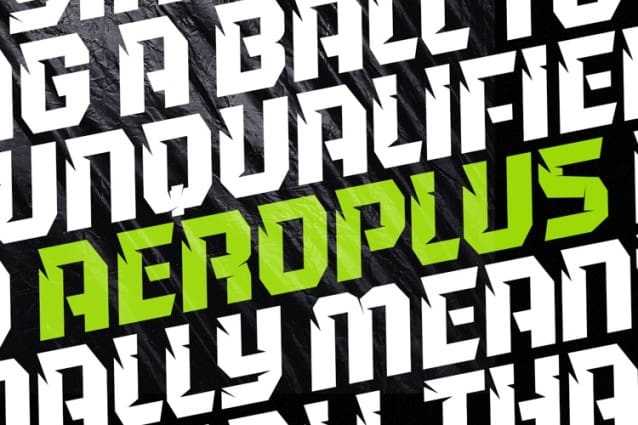
AeroplusSs3 Italic Font
AeroplusSs3 Italic Font, this typeface has a clean and athletic look, glyphs and extensive Latin script support. Aeroplus is bold, vibrant with sharp sans serifs and competitive appearance, therefore excellent to use for headers, logos, captions and posters, especially for the sports branding industry, but just as good for any other projects.